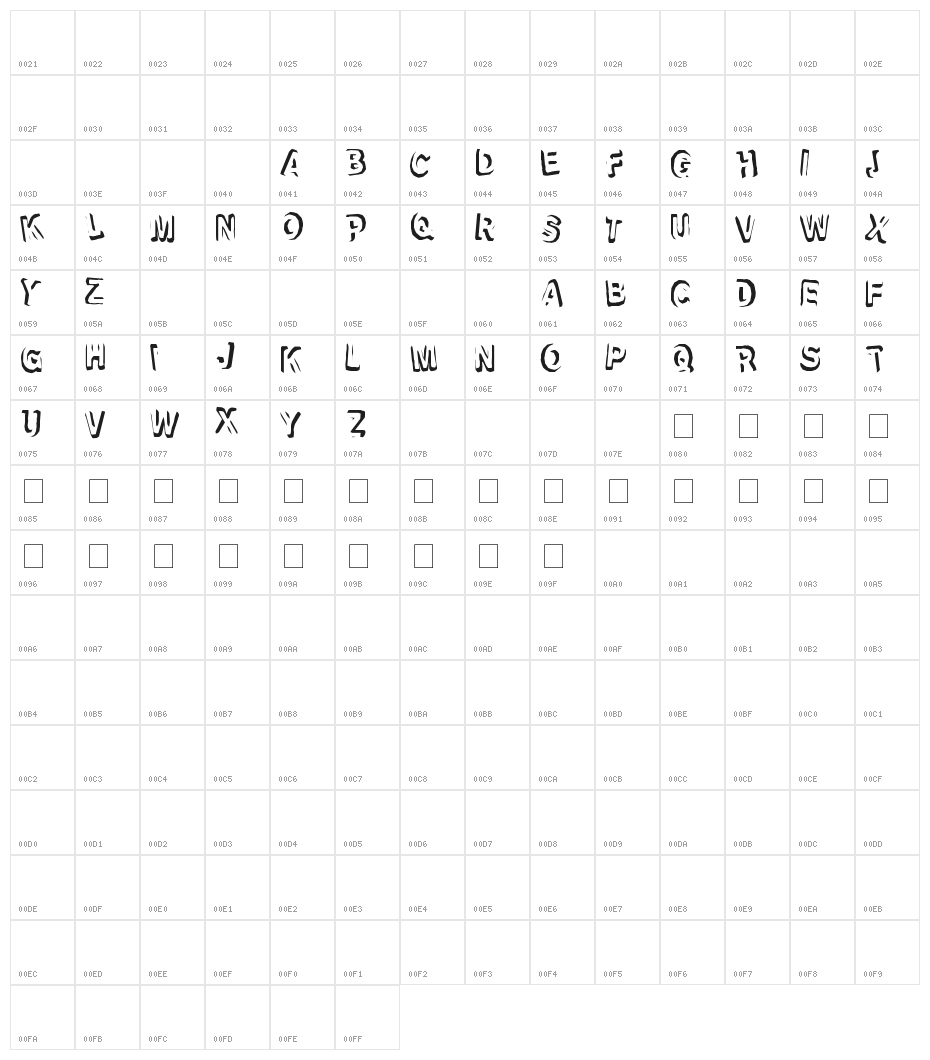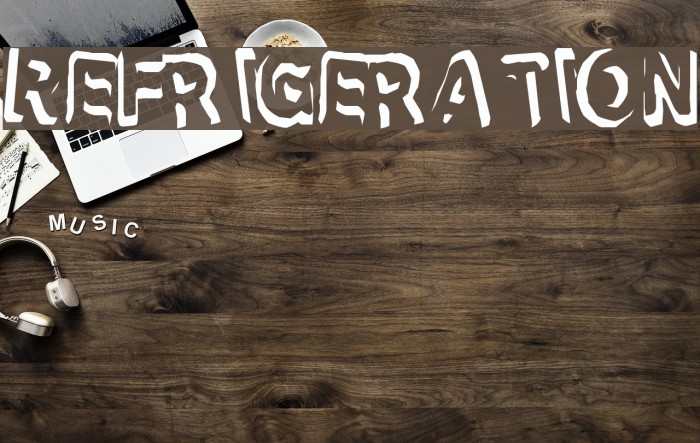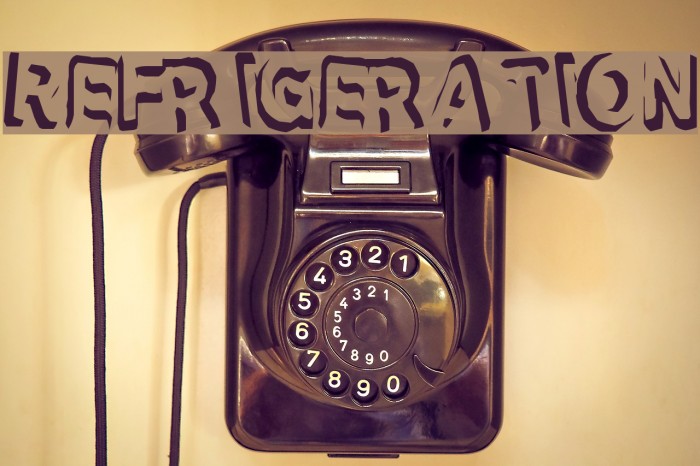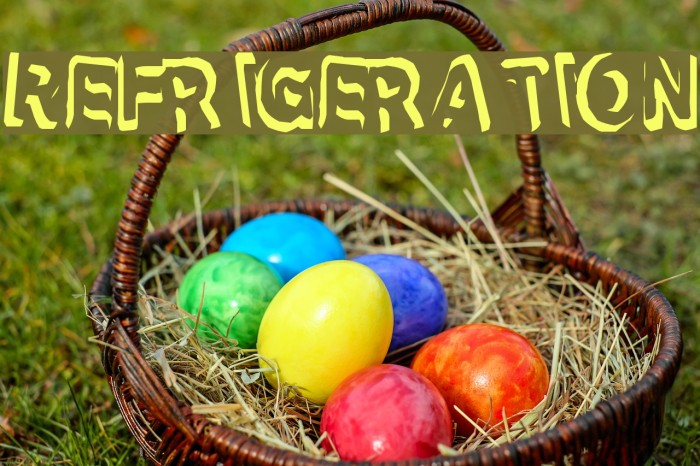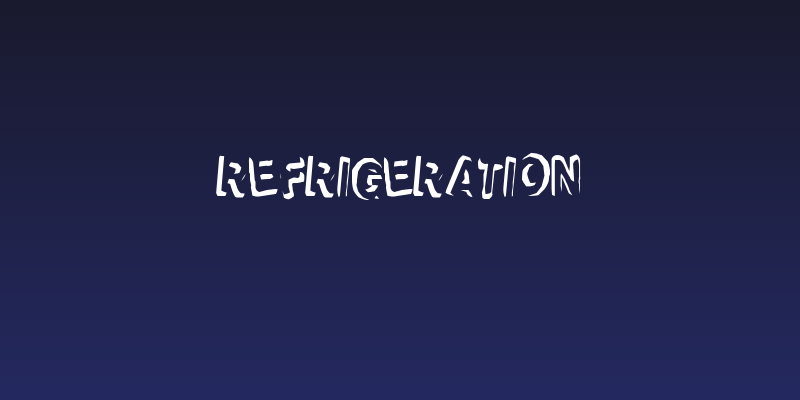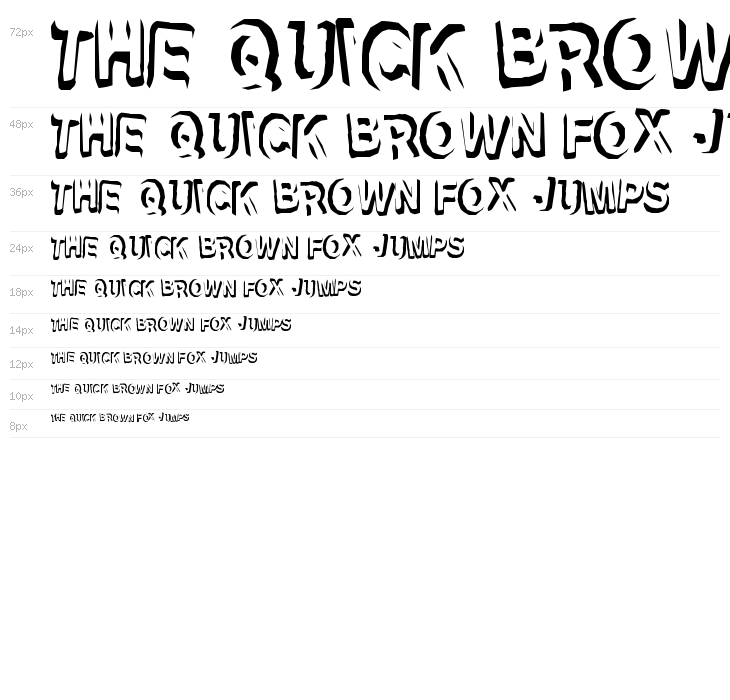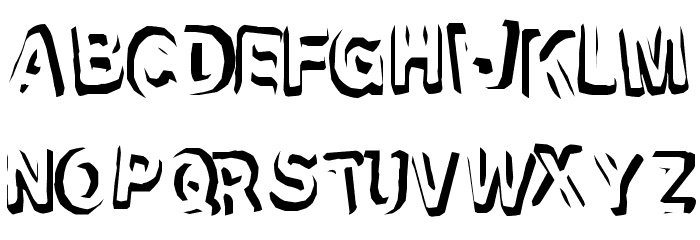
Refrigeration Font
Refrigeration Description
This font features a bold and dynamic style with a unique, distressed appearance. The characters have an irregular, jagged edge that gives them a sense of movement and energy. The uppercase and lowercase letters maintain a consistent style, with the uppercase being slightly more pronounced. The numbers and special characters follow the same design, ensuring uniformity across all elements. This font is eye-catching and would stand out in any design, making it ideal for projects that require a strong visual impact.
| Overall Style | Modern, Edgy |
| Proposed Projects | Ideal for posters, album covers, and branding that requires a bold, edgy look. |